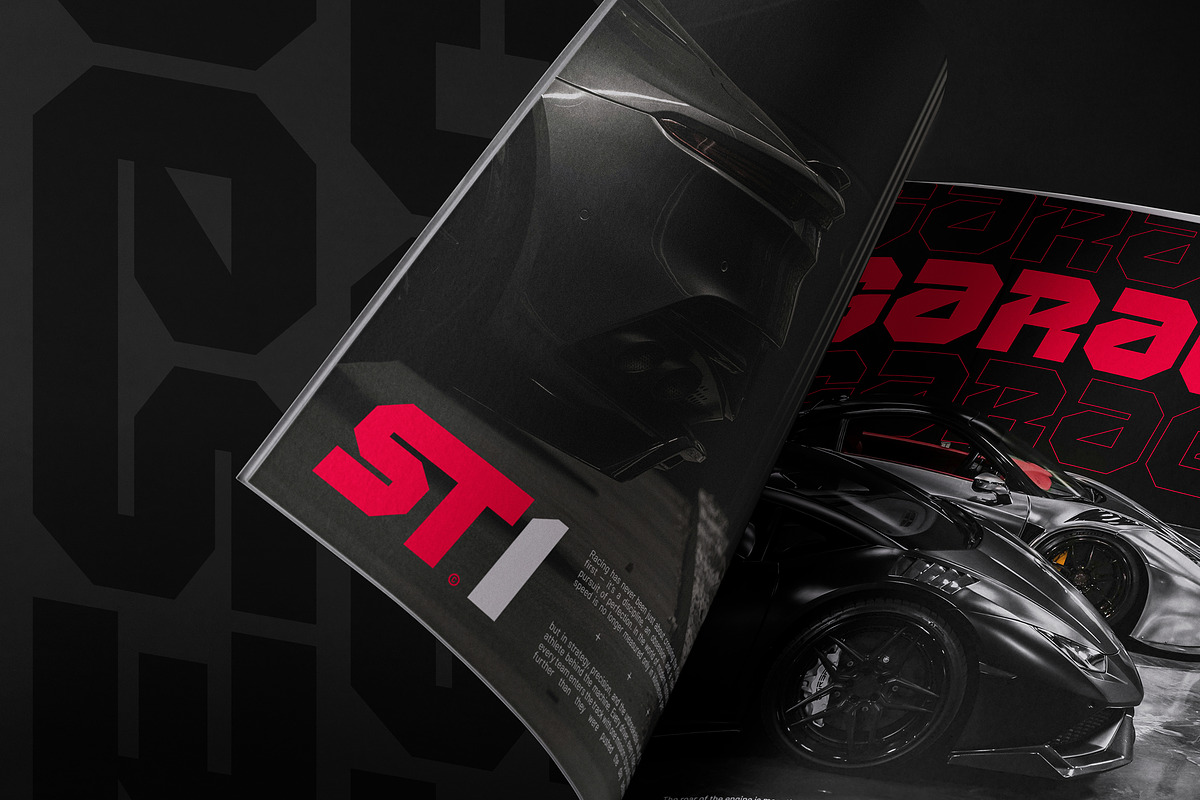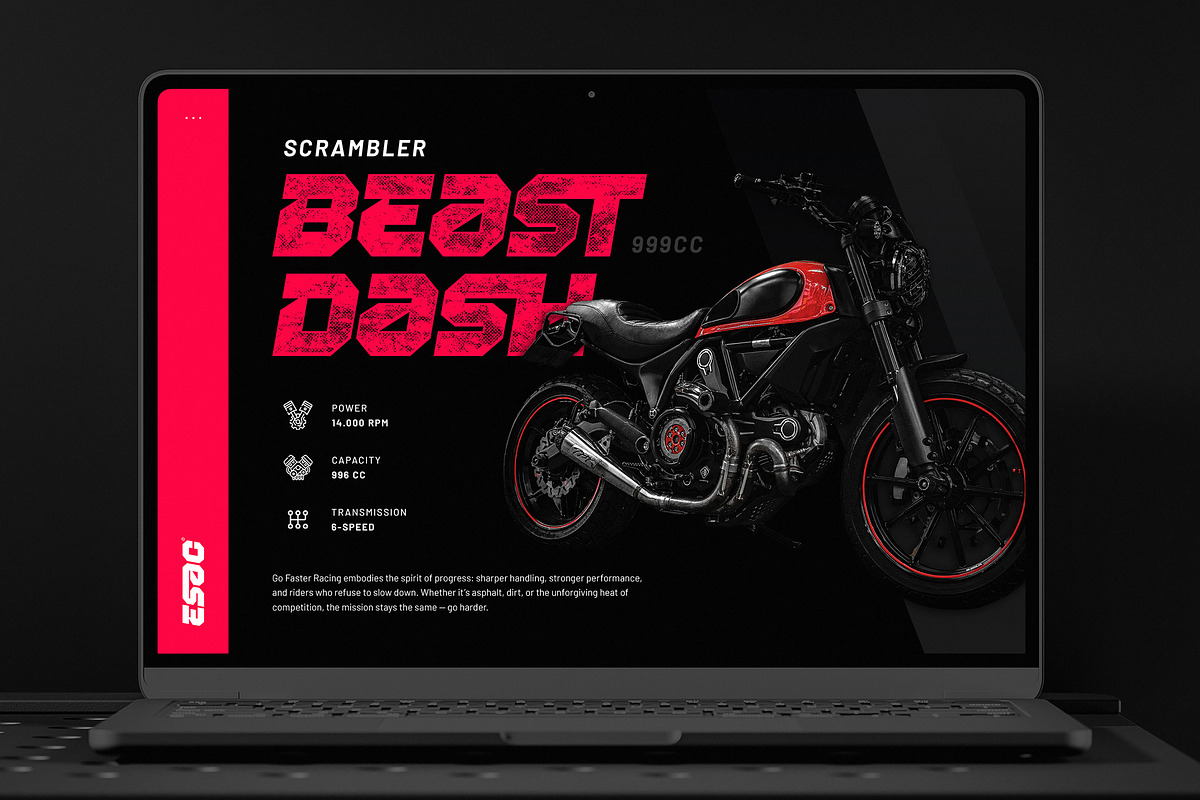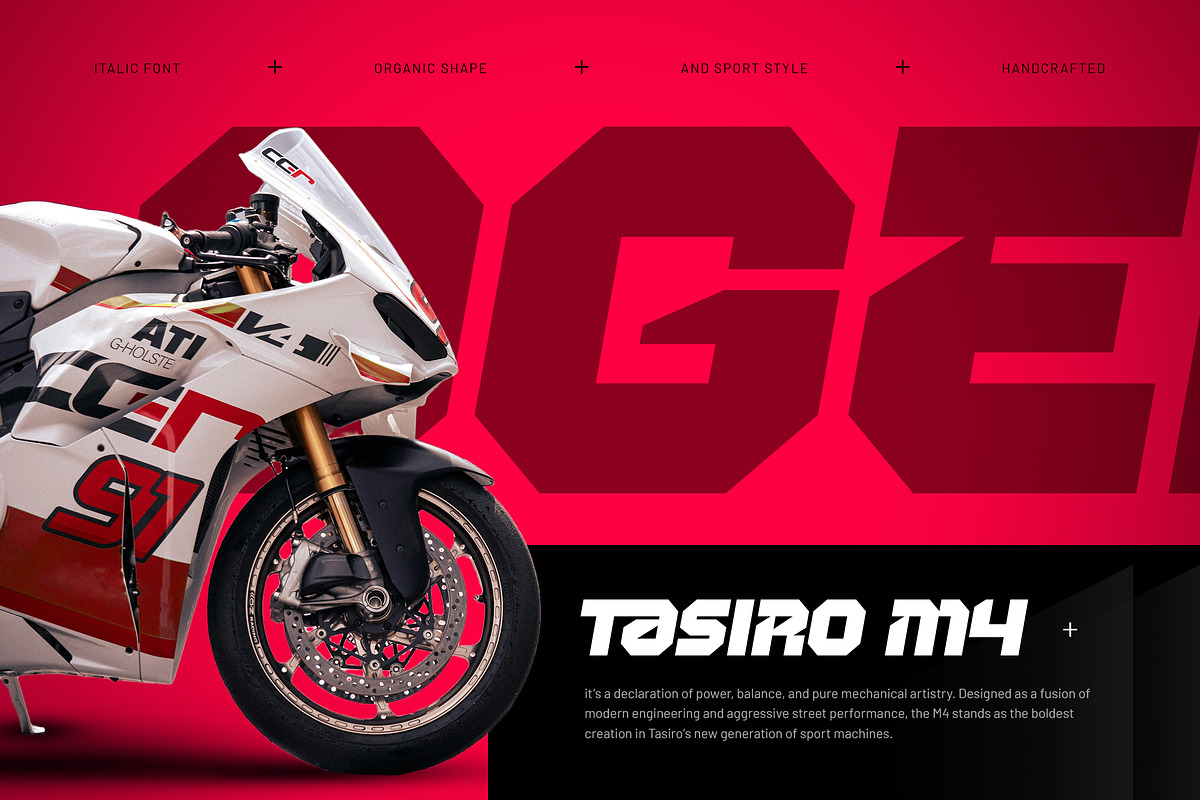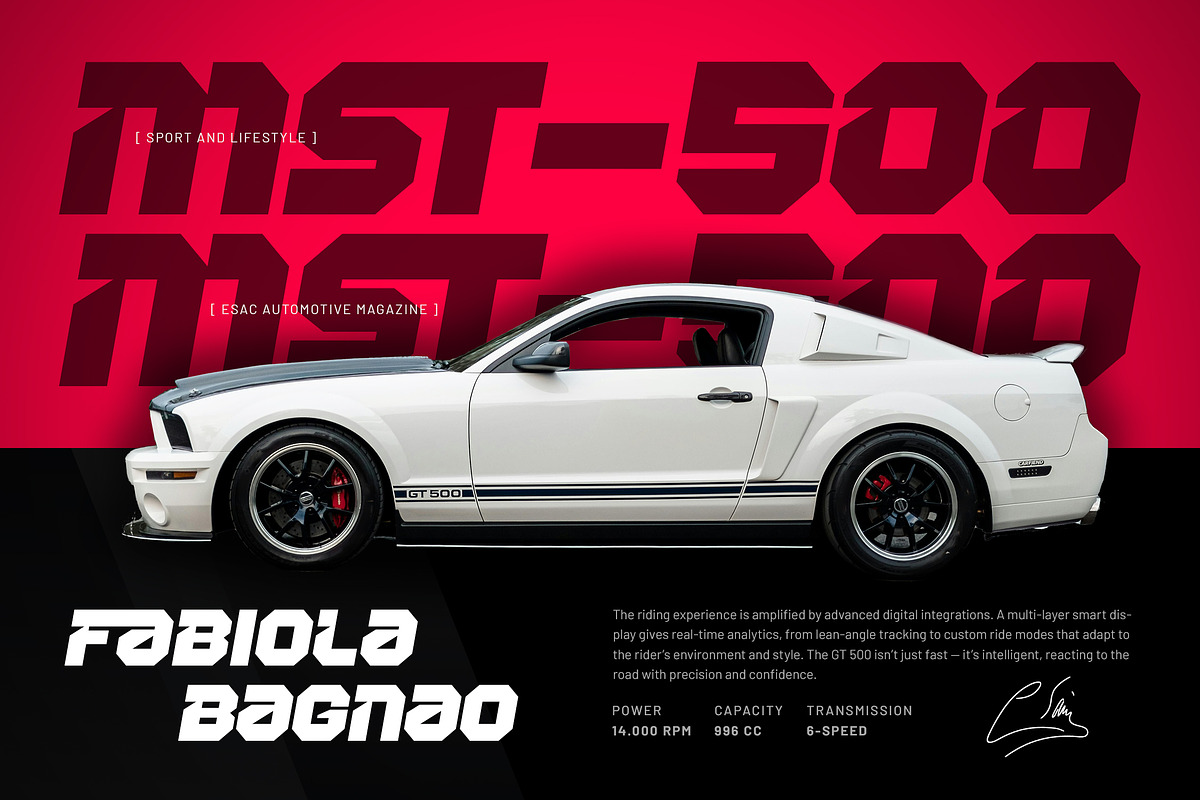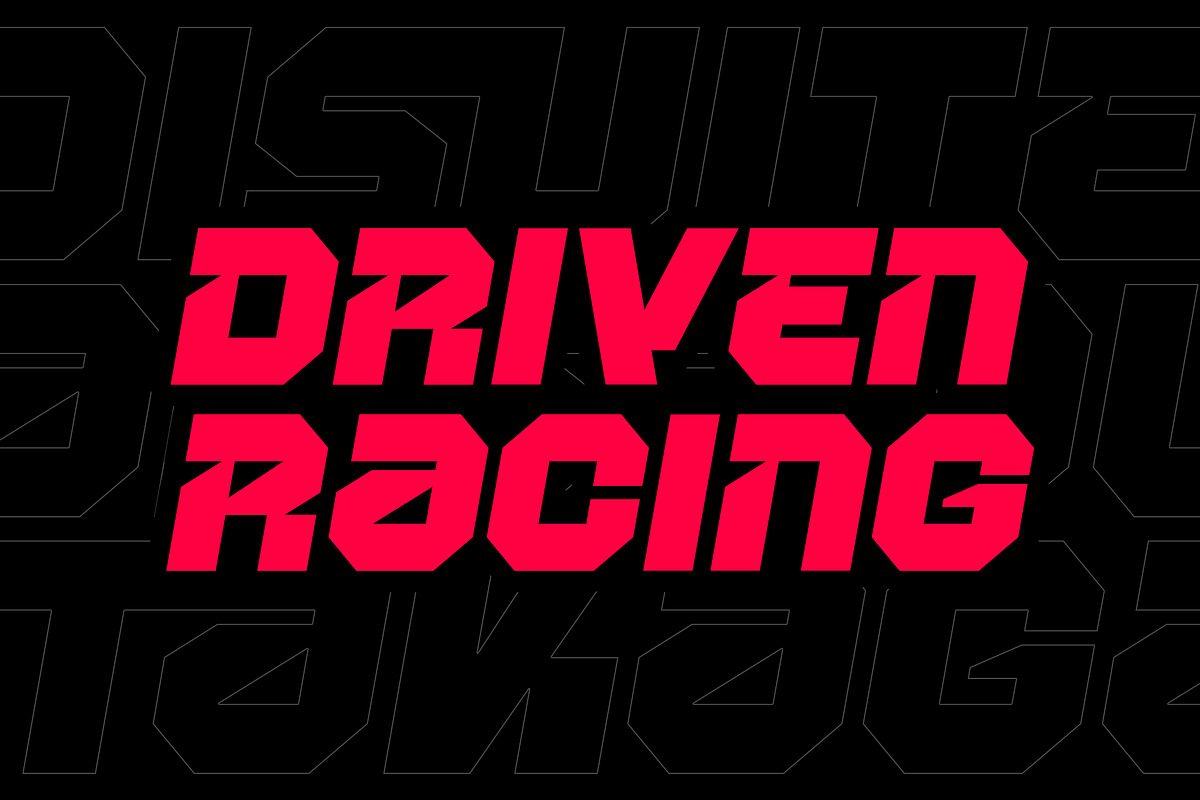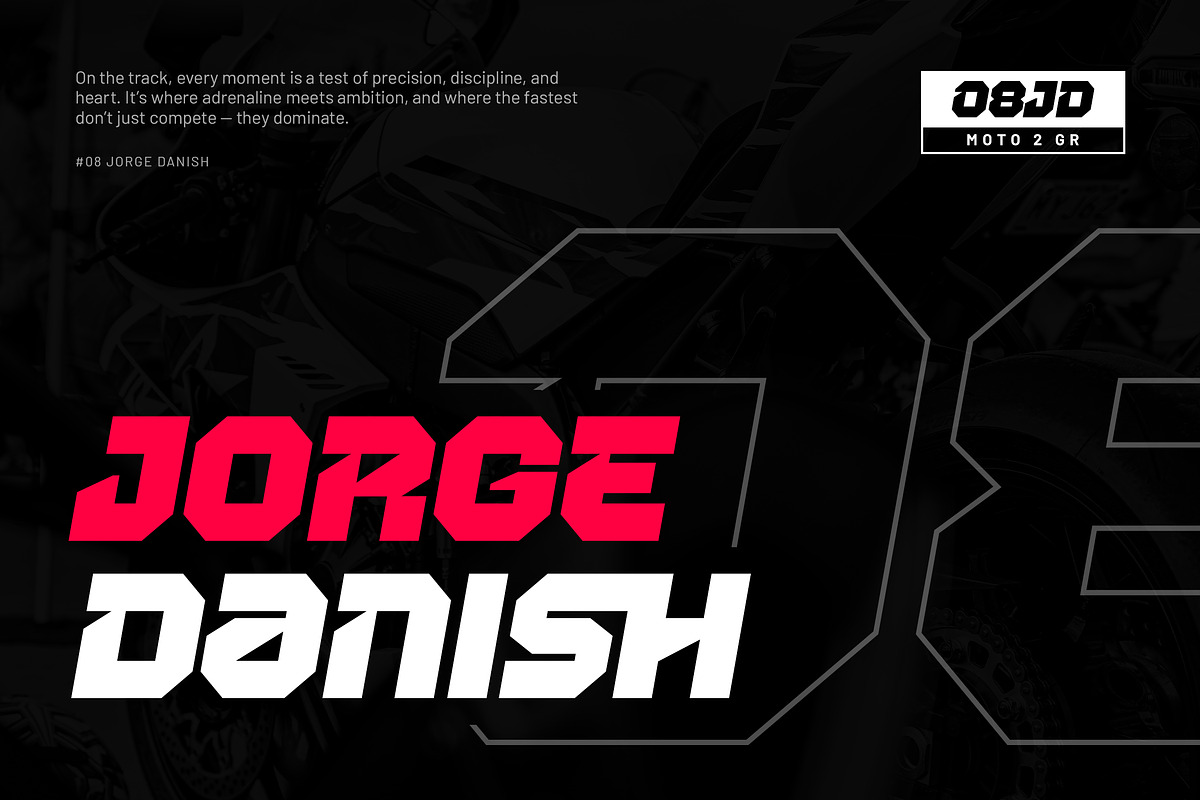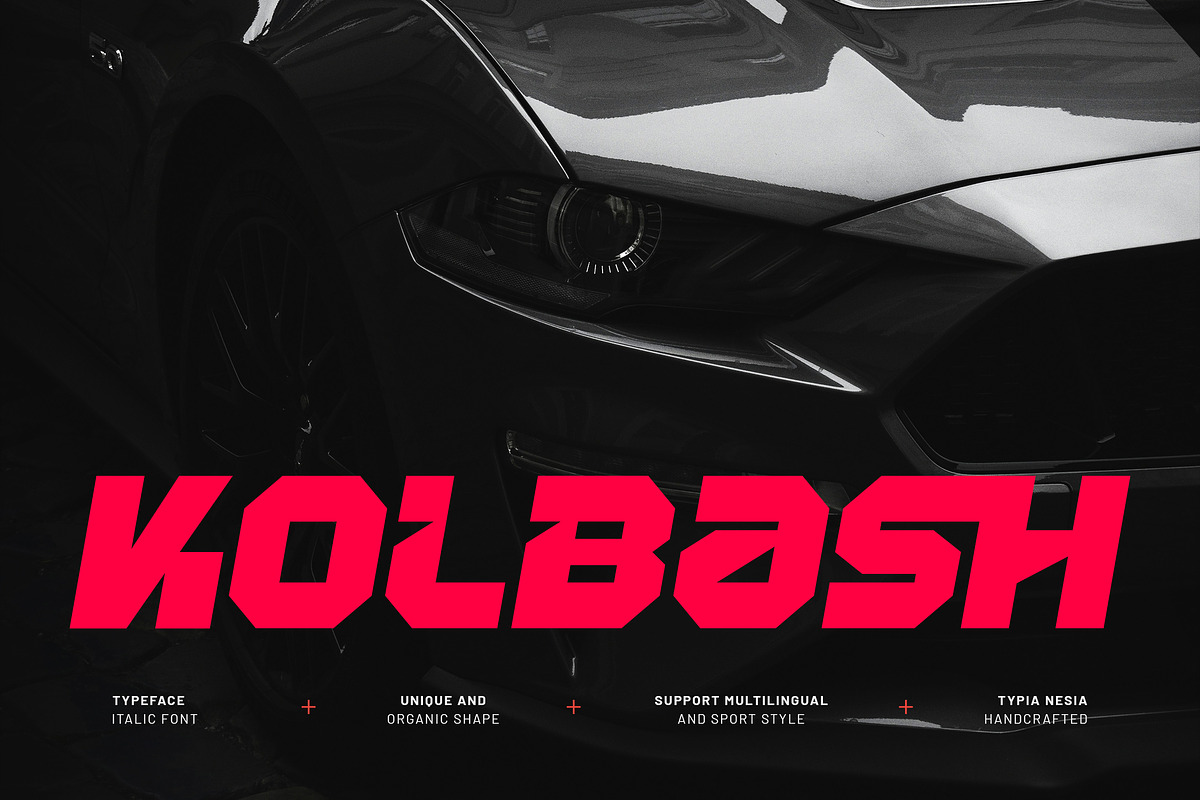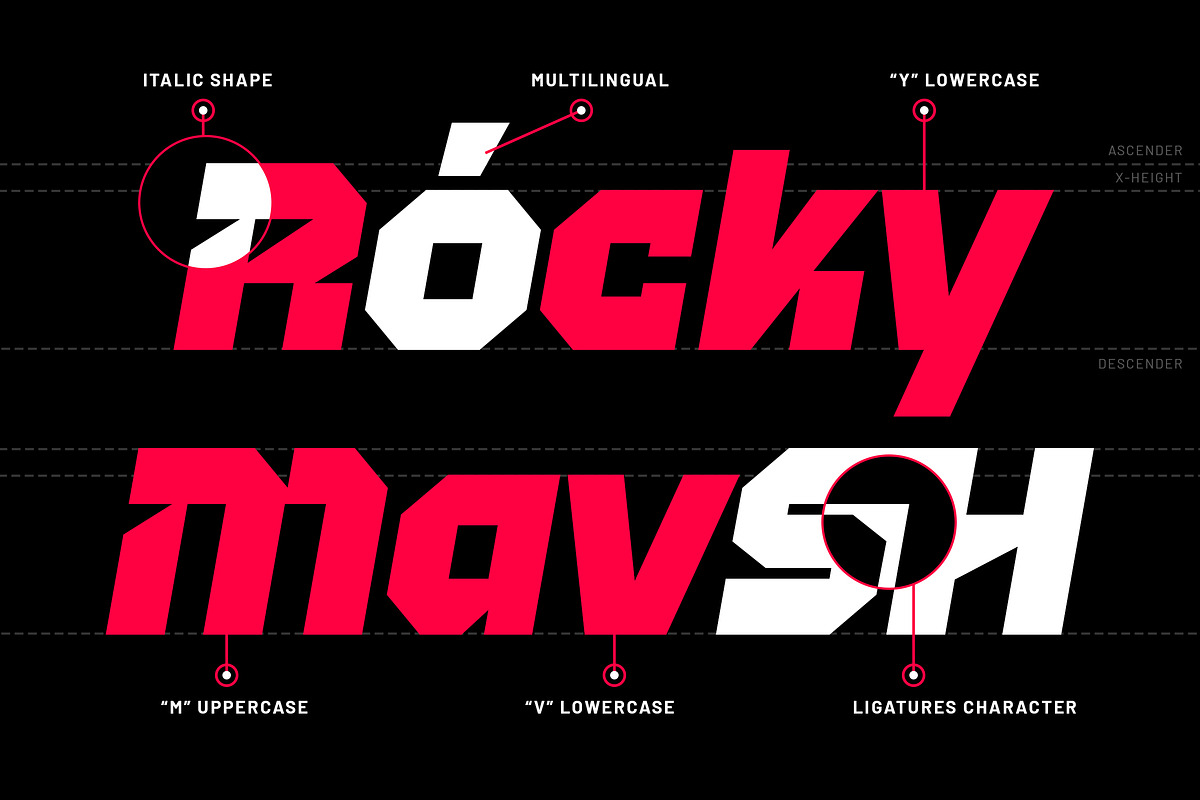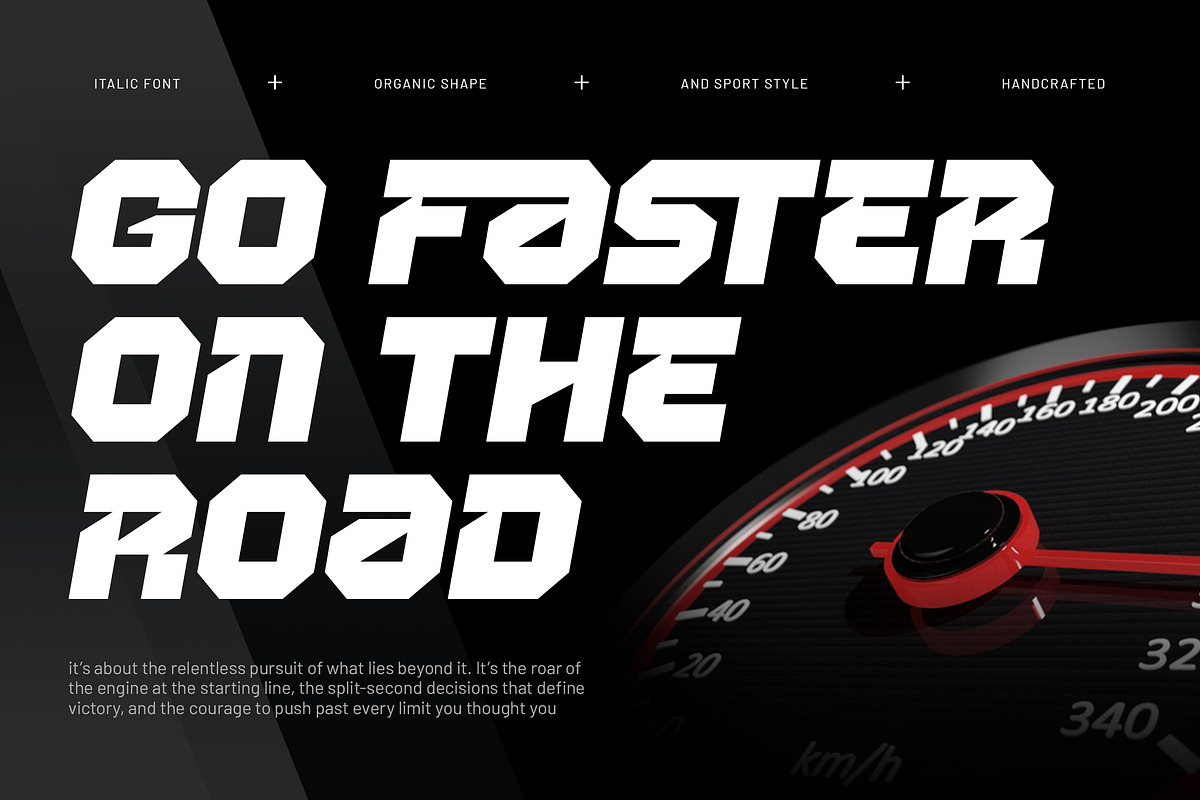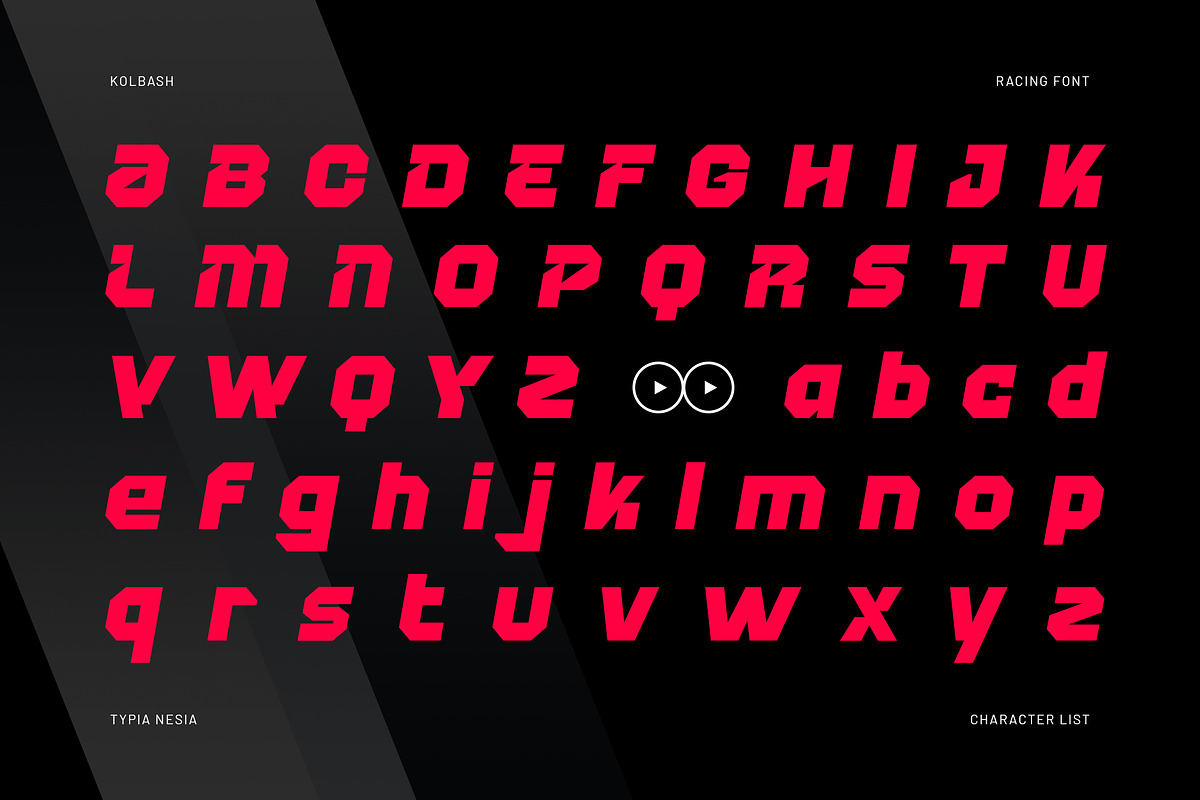
Kolbash - Modern Bold Futuristic
Kolbash - Modern Bold Futuristic Logo Sans - Sport Italic Racing & Tech Display Font
Kolbash is a modern sport italic racing font meticulously engineered for high-octane speed and precision. It's futuristic typeface draws inspiration from tech and space aesthetics, with an italic slant that conveys constant motion, making it the ultimate choice for game branding, logotype creation, professional sports identities, logo design, dynamic web interfaces, large-scale poster layout and any project requiring a fast-paced, futuristic edge.